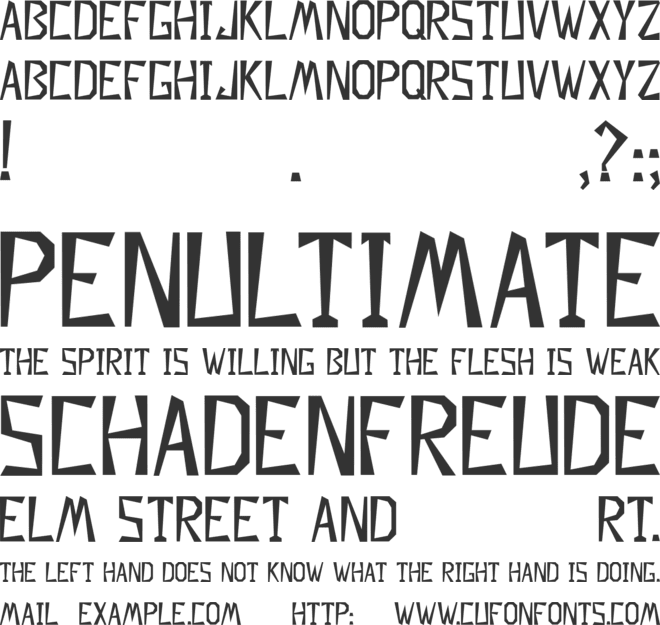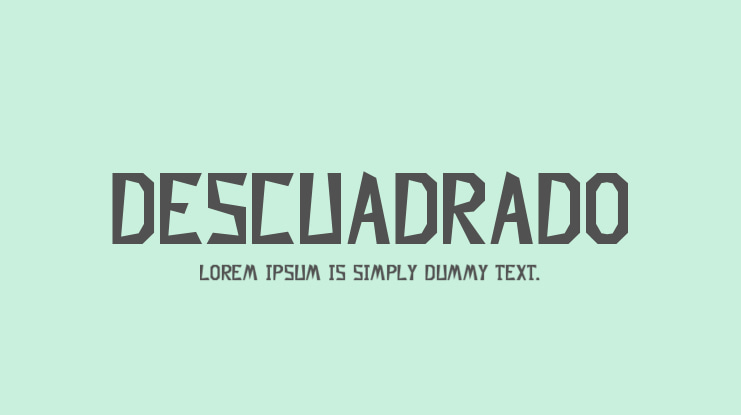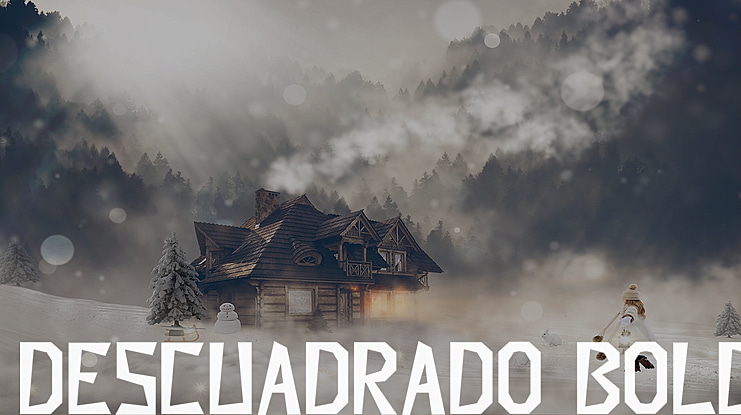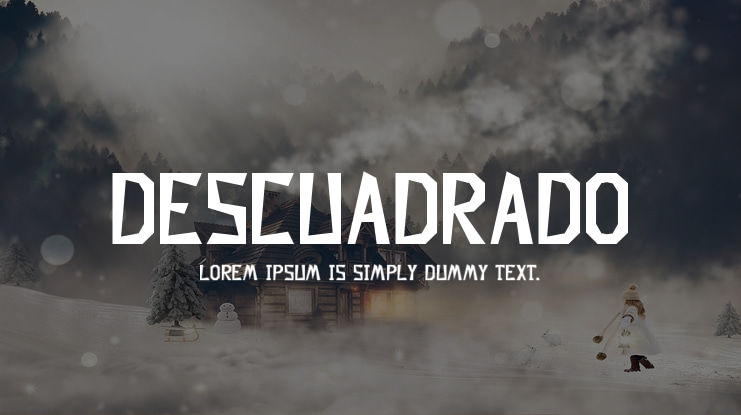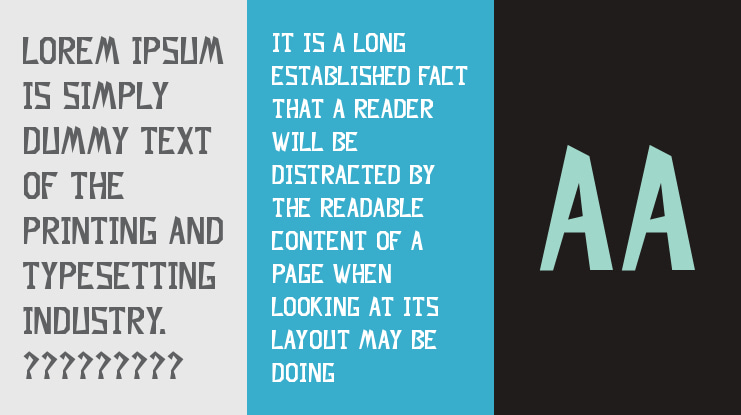
Descuadrado Font Family
Jaime Rangel Castro
Descuadrado is an unsquared font that comes as 3 different types: Regular, Bold & Hollow (Outline).
This font is partial.